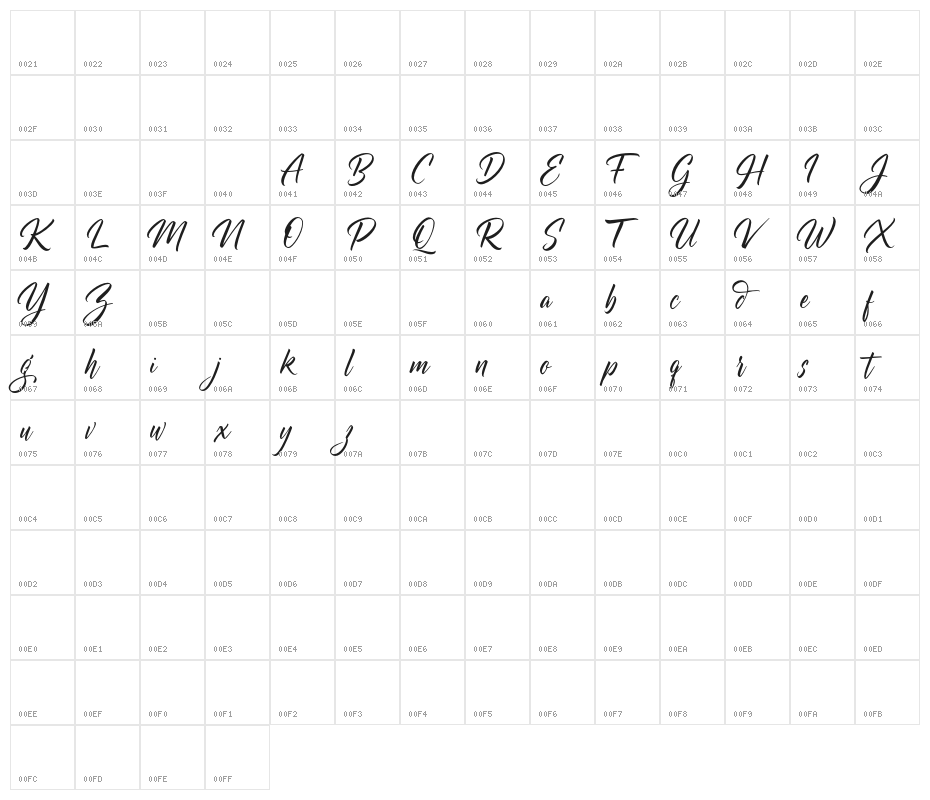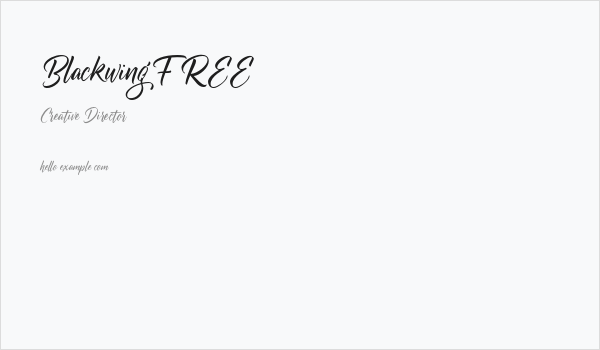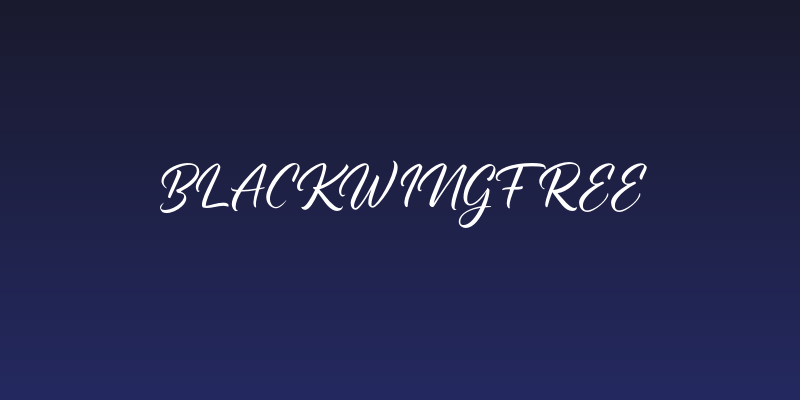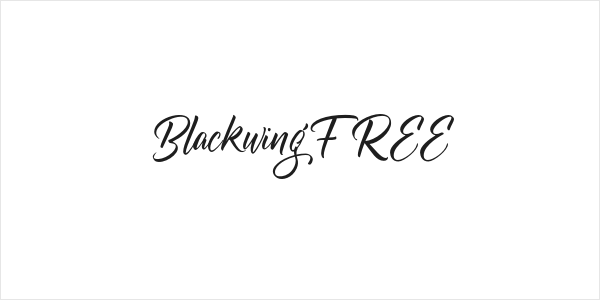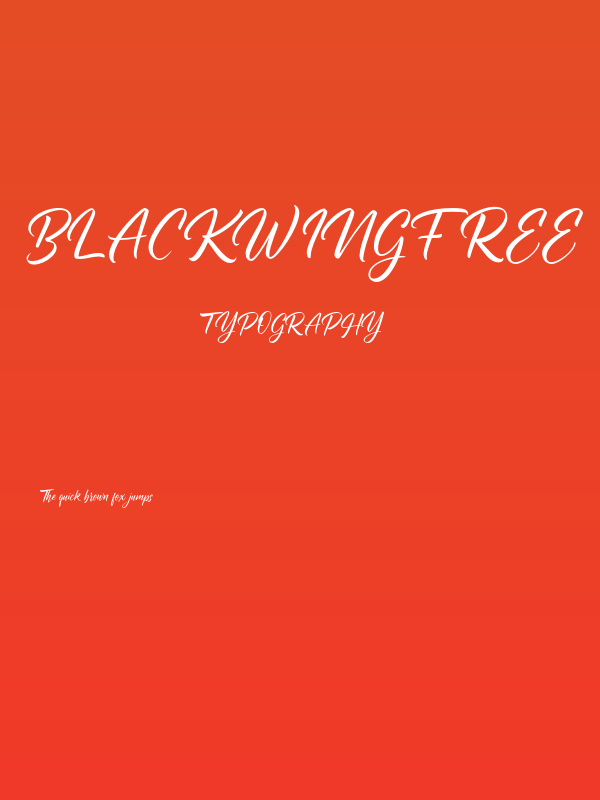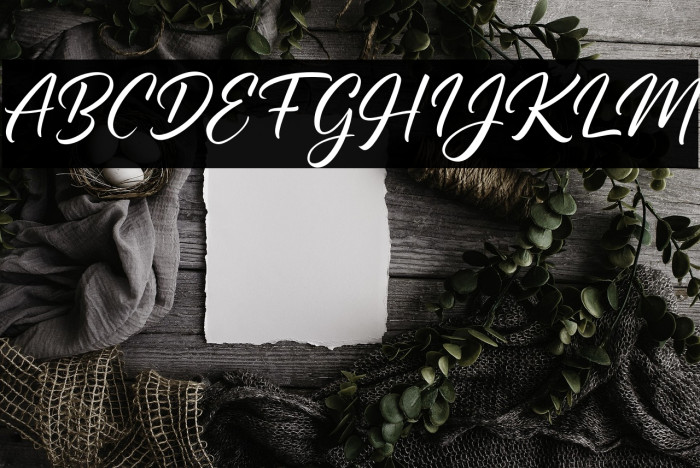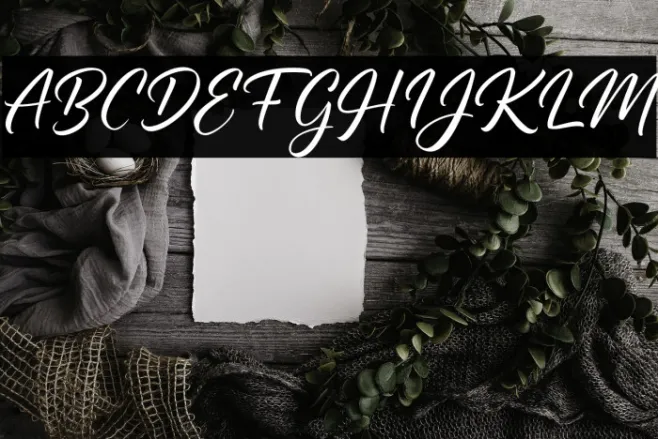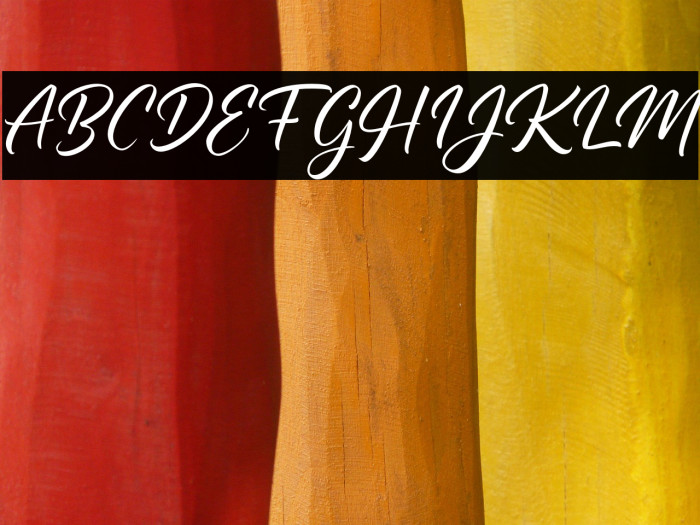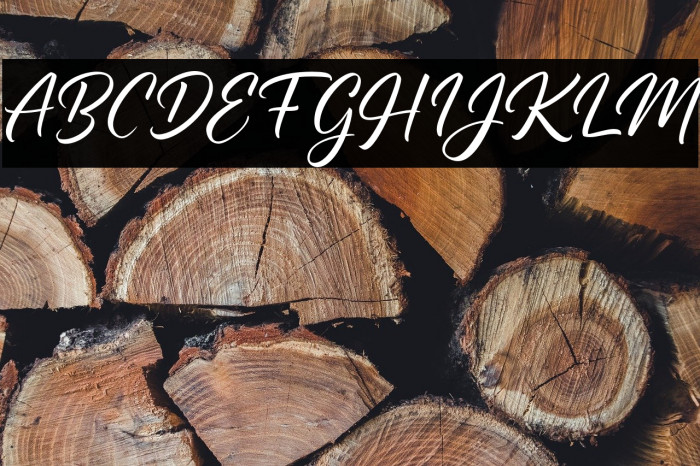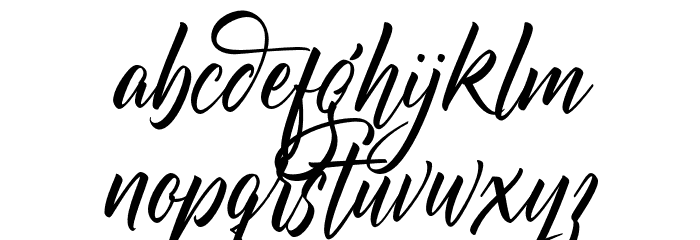
BlackwingFREE Font
BlackwingFREE Description
This elegant script font features flowing, interconnected letters that exude a sense of sophistication and grace. The uppercase letters are tall and slightly slanted, with delicate curves and flourishes that add a touch of flair. The lowercase letters maintain a consistent style, with smooth transitions and loops that enhance readability while maintaining an artistic flair. The font's overall appearance is both classic and modern, making it versatile for various design applications. The characters are well-spaced, ensuring clarity and legibility even in smaller sizes. This font is ideal for projects that require a touch of elegance and style.